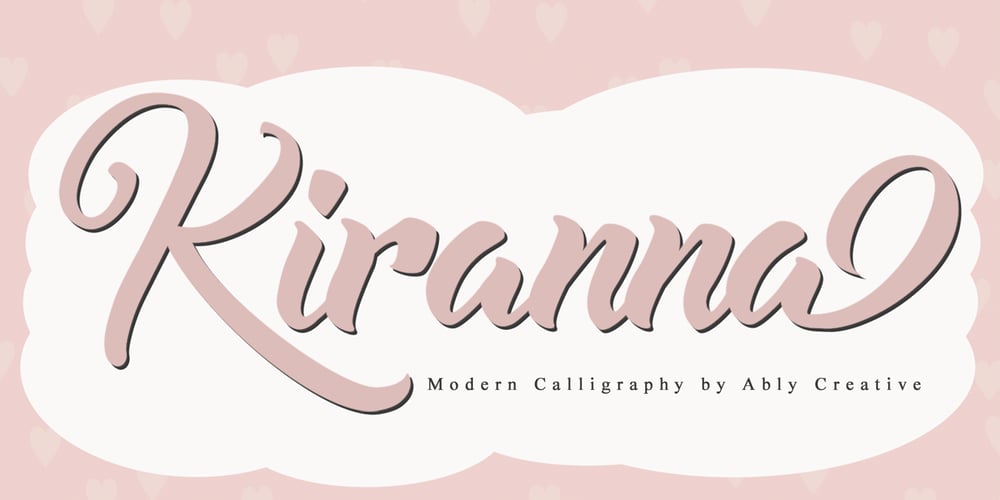
Kiranna Font Family was designed by Amrullah Medan, Amrullah, Dedi Purwanto and published by Ably Creative. Kiranna contains 1 styles and family package options. Kiranna is a classic handwritten font nd combination with Hand Lettering style. we make with personality touch every single curve. I hope this can make inspire you from your work. and a very bouncy. Ideal for logos, handwritten quotes, product packaging, header, poster, merchandise, social media & greeting cards.. This font is suitable for wedding invitation, branding, invitation, t-shirt, mailing and other suitable design you can think of.To enable the OpenType Stylistic alternates, you need a program that supports OpenType features such as Adobe Illustrator CS, Adobe Indesign & CorelDraw X6-X8.There are additional ways to access alternates, using Character Map (Windows), Nexus Font (Windows), Font Book (Mac) or a software program such as PopChar (for Windows and Mac).